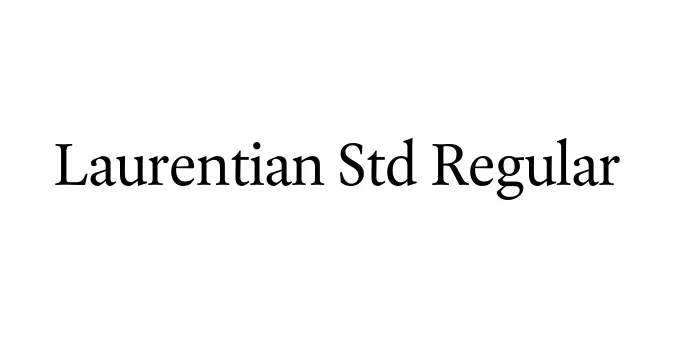
Laurentian Std Regular
Designed by Rod McDonald
Designed by the prolific Canadian type designer Rod McDonald, Laurentian was originally commissioned by Maclean’s magazine in the late 1990s. The typeface was specifically engineered to thrive in the demanding environment of magazine production, where readability and distinct character are paramount. It draws inspiration from 16th-century French Garaldes, merging historical elegance with contemporary structural robustness to ensure clarity even at smaller point sizes.
The Laurentian Std Regular weight offers a balanced and sophisticated texture that makes it an excellent choice for long-form reading. Over the years, it has become a staple for book designers and editors who require a font that feels traditional yet possesses a modern, clean edge. Its distinct personality shines through in its nuanced serifs and open counters, making it a versatile tool for both high-end digital platforms and traditional print media projects.
Laurentian Std Regular Best Uses
Perfect for magazine articles, long-form features, and high-end editorial layouts.
Highly readable for interior body text in novels, memoirs, and textbooks.
Provides a sophisticated and authoritative look for professional corporate identities.
Excellent for digital storytelling and high-quality blog posts requiring a touch of class.